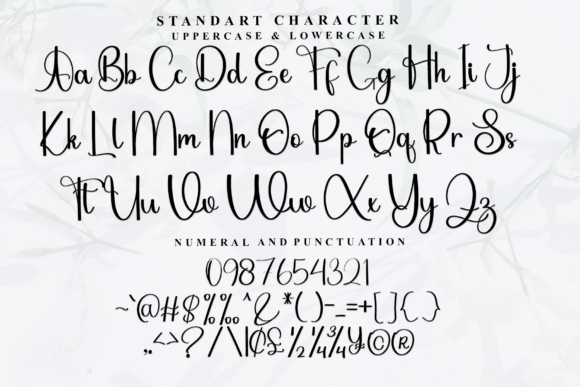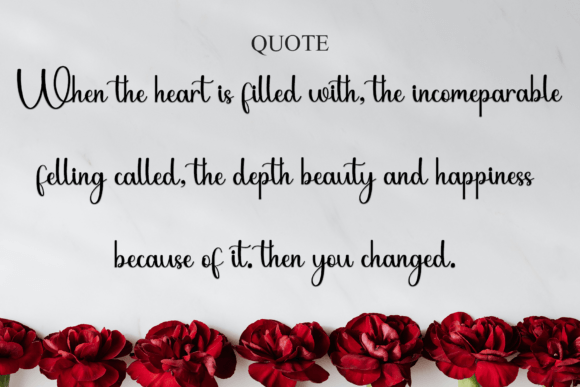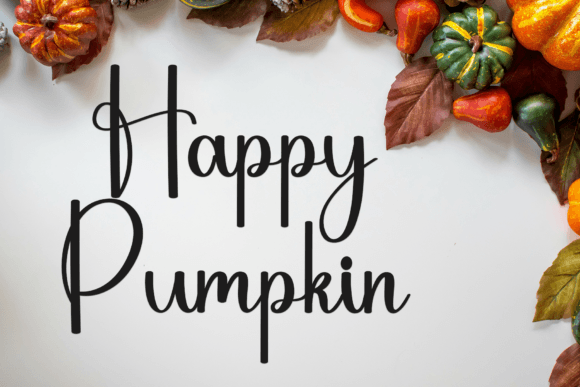
Introduction to Santa December Font
As you sit down to design your holiday cards or gift tags, a spark of creativity hits you. You envision a festive and merry design that captures the magic of the season. That’s where the Santa December Font comes in – a delightful typeface that adds a touch of whimsy to your creative project. This enchanting font is the perfect design resource to bring a cheerful and nostalgic ambiance to your words.
Key Features of Santa December Font
- Perfect for festive and holiday-themed designs, including Christmas cards, gift tags, and packaging.
- Features a unique, hand-drawn style with intricate details, adding a touch of personality to any design project.
Honest Review: Santa December Font
I recently had the chance to try out the Santa December Font, and I must say, it’s a lovely addition to my design resource library. ✨
- ✨ The font is available in a transparent background option, which makes it easy to customize and integrate into any design.
- ✨ The high-quality design and crisp typography make it perfect for print and digital use.
- ⚠️ One limitation I’ve noticed is that the font is only available in a single weight, which might limit its versatility in certain design projects.
- ⚠️ Additionally, the font’s design is quite specific to the holiday season, which might make it less suitable for year-round use.
Overall, I’m impressed with the Santa December Font’s design and versatility. While it has some limitations, it’s a great resource for designers working on holiday-themed projects. If you’re looking for a unique and festive font, I’d definitely recommend giving it a try.
Common Use Cases for the Santa December Font
The Santa December Font is perfect for a wide range of creative projects, including holiday-themed designs, winter wonderland scenes, and festive greeting cards. Its high-quality design and transparent background make it an ideal choice for digital design projects.